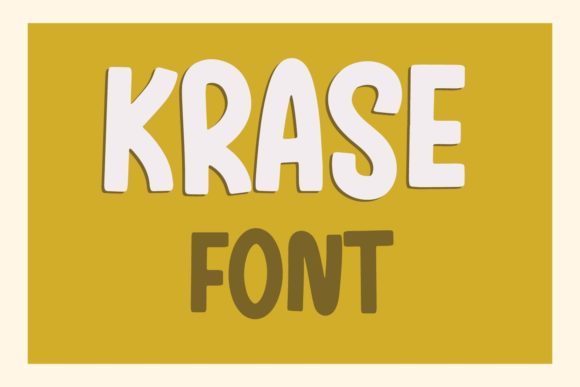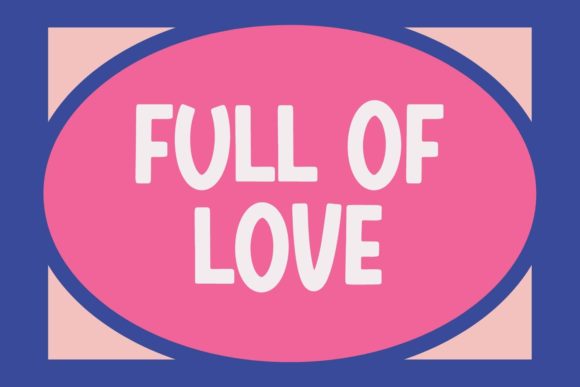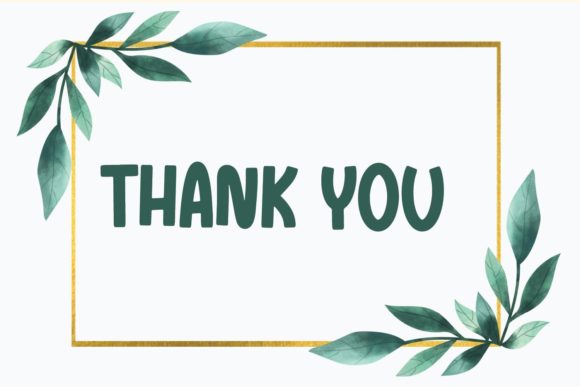
About Krase Font
Krase is a playful, thick lettered and modern display font. It can easily be matched to an incredibly large set of projects, so add it to your creative ideas and notice how it makes them stand out!